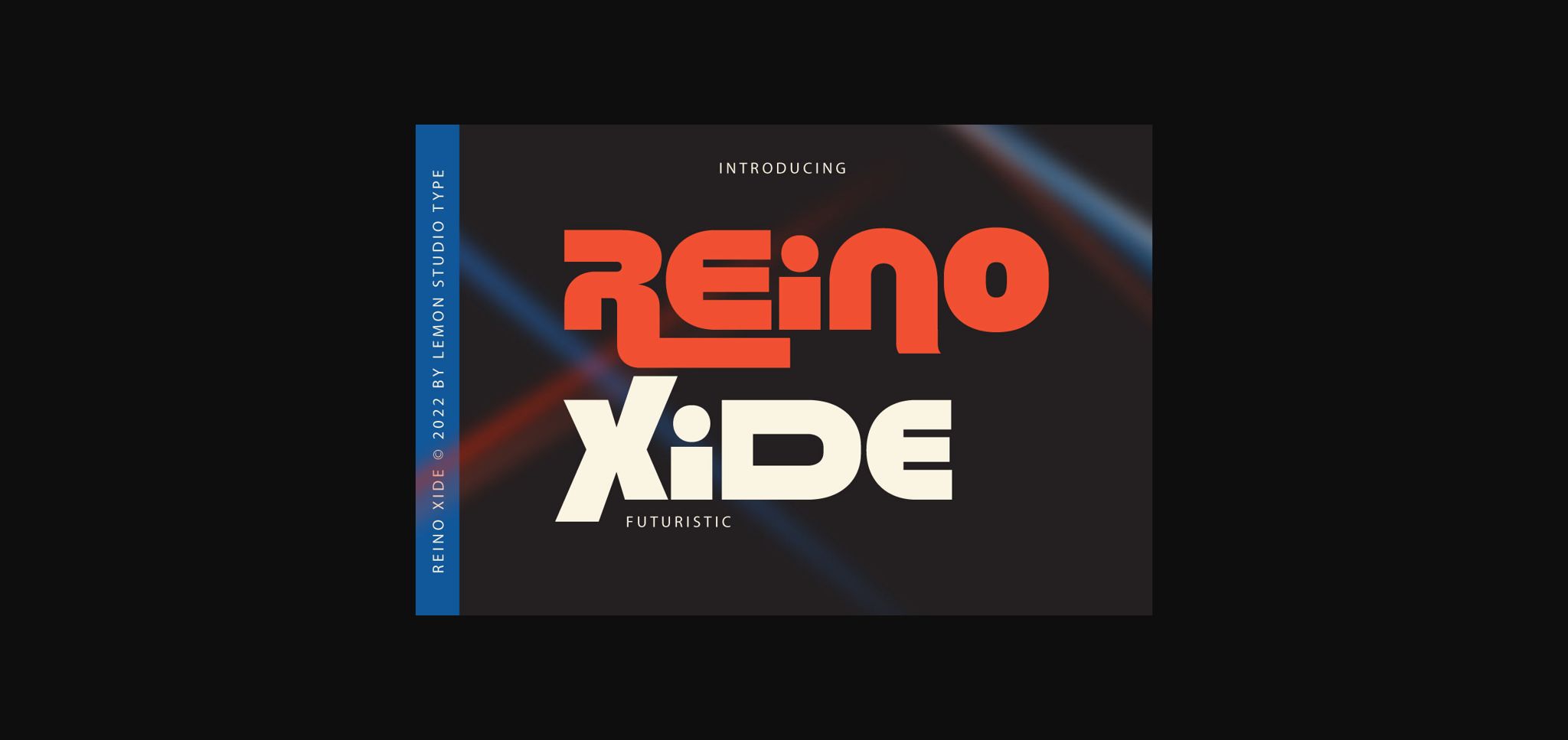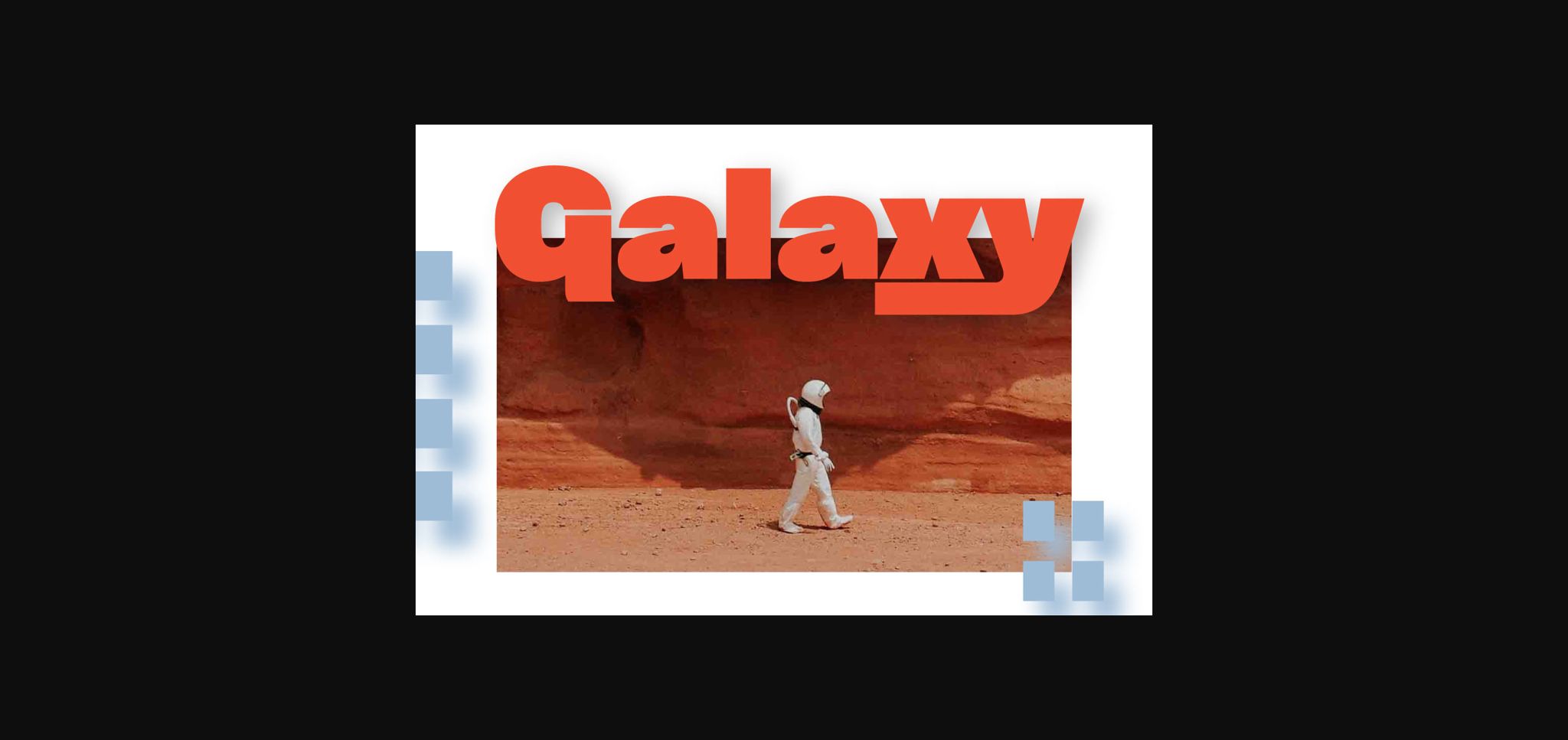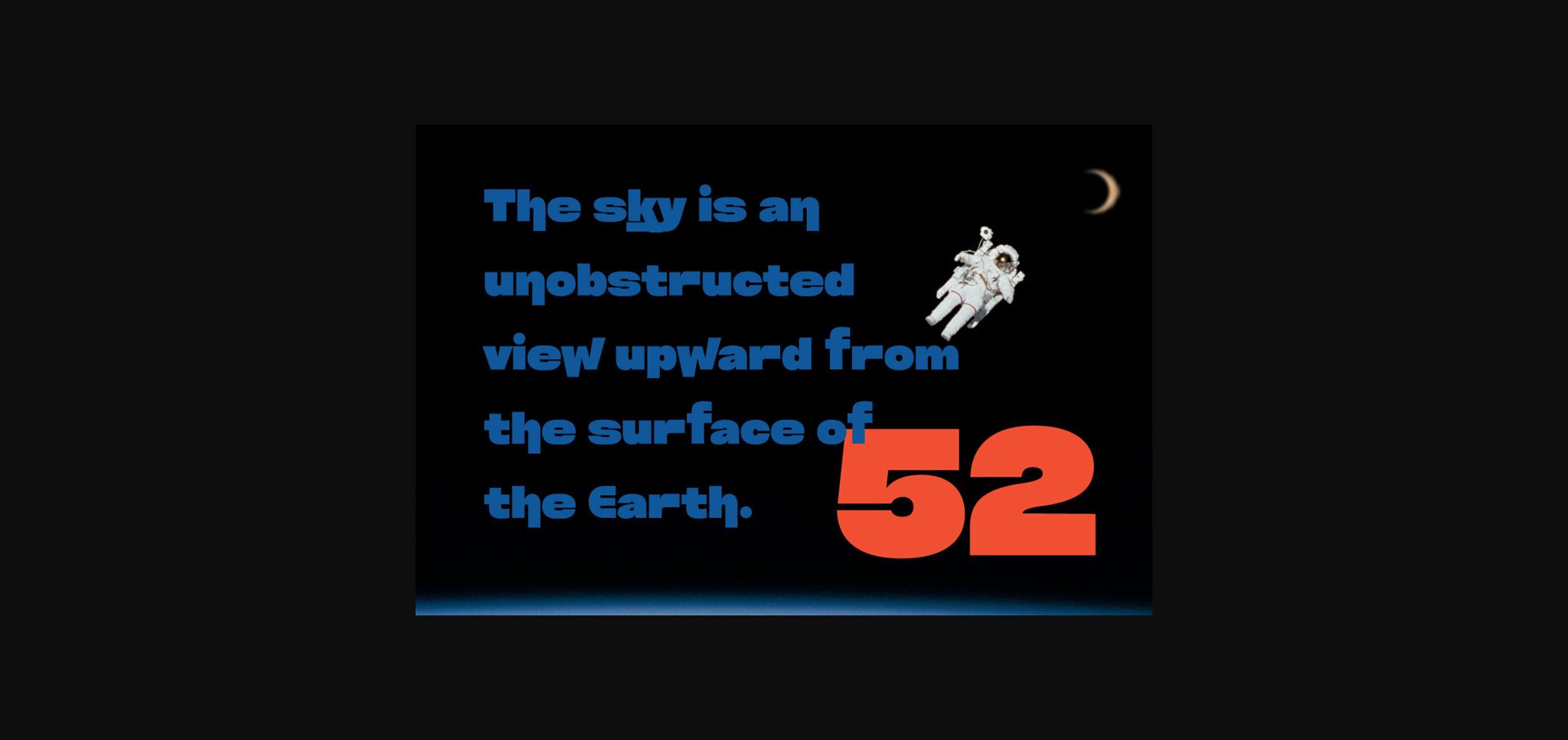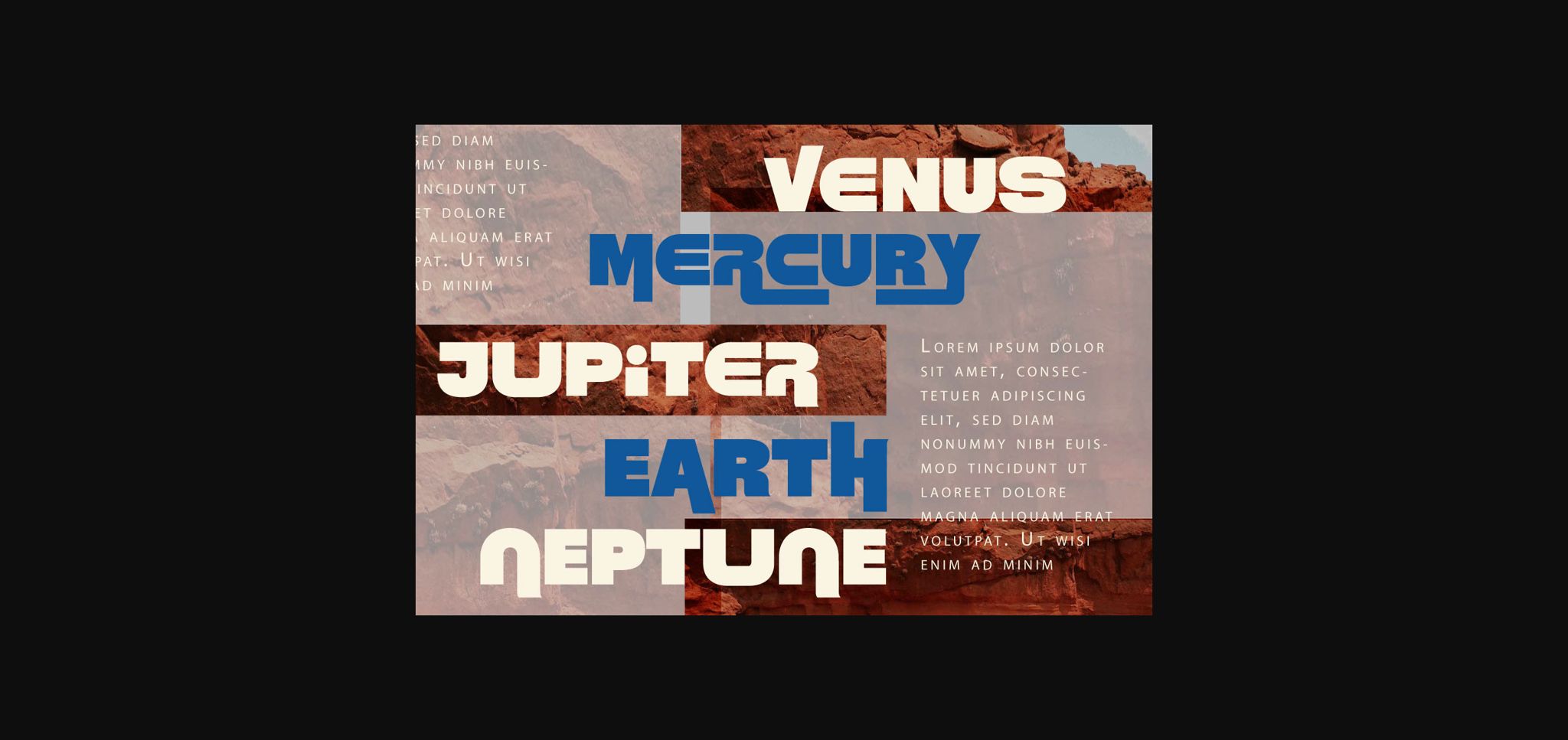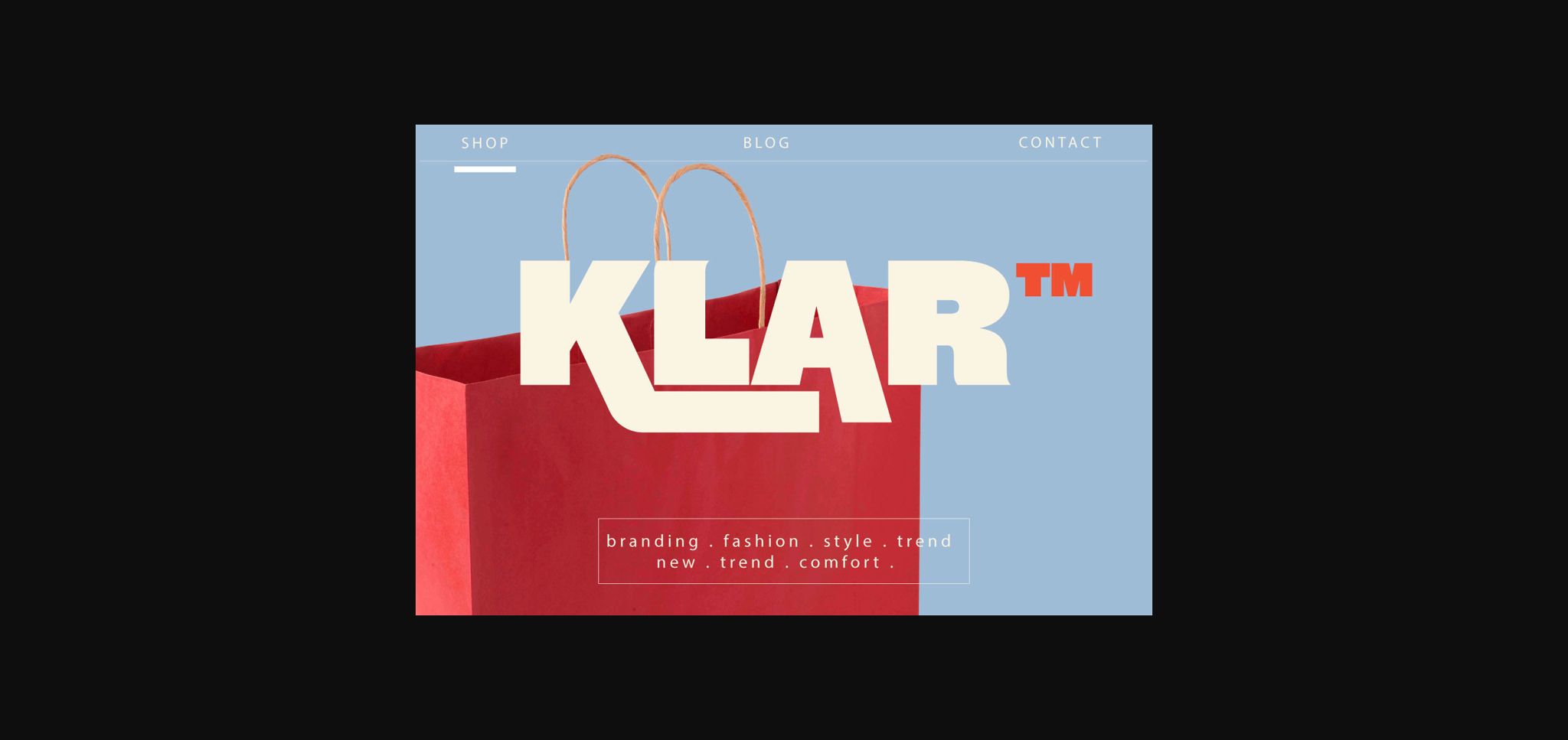
About Reino Xide Font
Reino Xide is a futuristic font that also comes in a bold style with a very strong stylistic touch related to sci-fi and techno themes. Use this font for your typography needs, mockups, headings, branding, and many more.